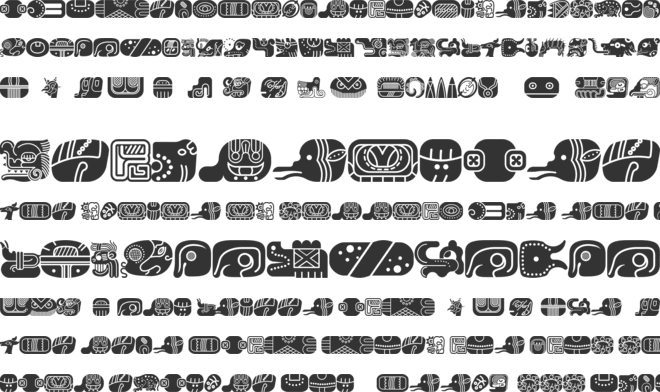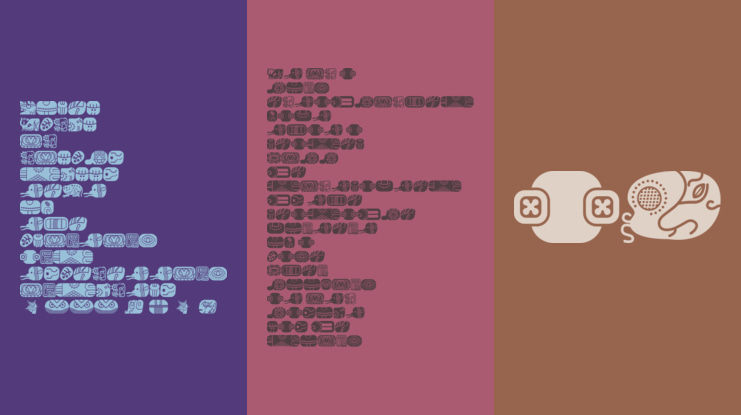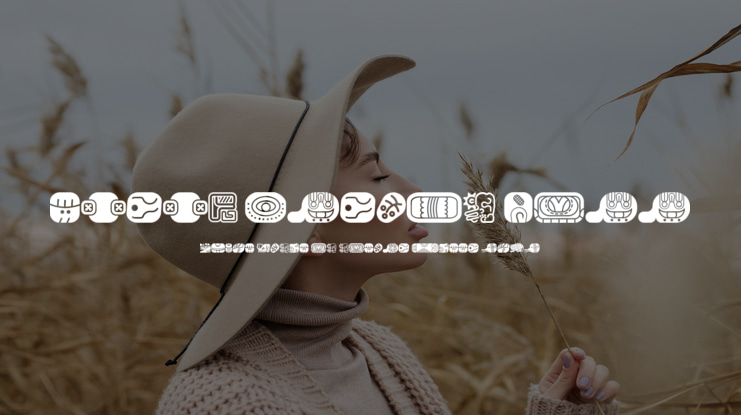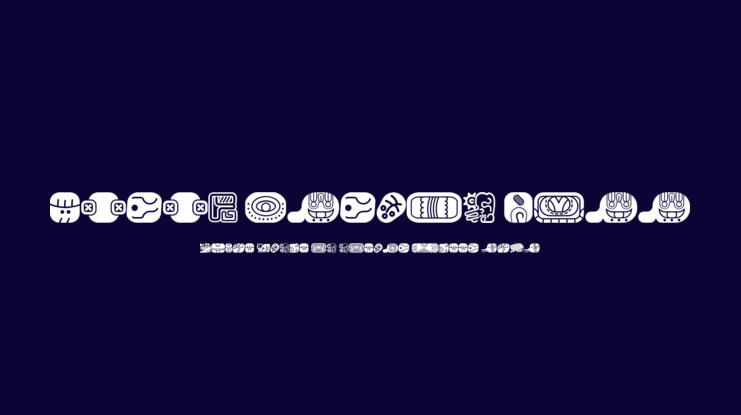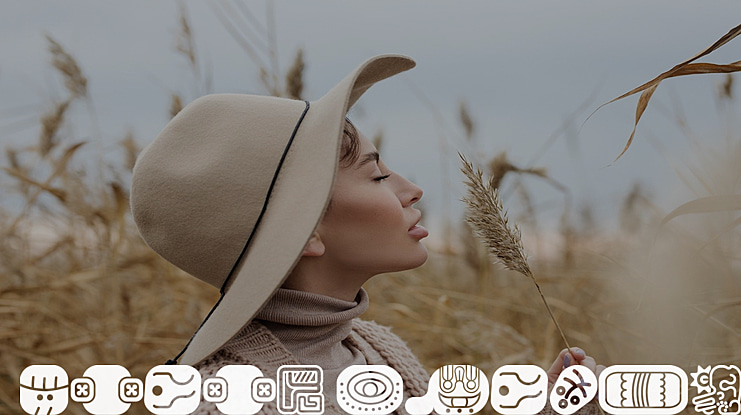
mayan glyphs fill Font Family
This dingbat font is based upon mayan glyphs from the catalog of maya hieroglyphs by j. eric s. thompson. main signs from 719 to 781 that it is available here (http://www.famsi.org/mayawriting/thompson/thompson456.html) to browse or download. also available as a vector freebie, if you do not want to install the font, in my deviant art page here (http://ikarusmedia.deviantart.com/art/mayan-glyphs-vector-290487205).